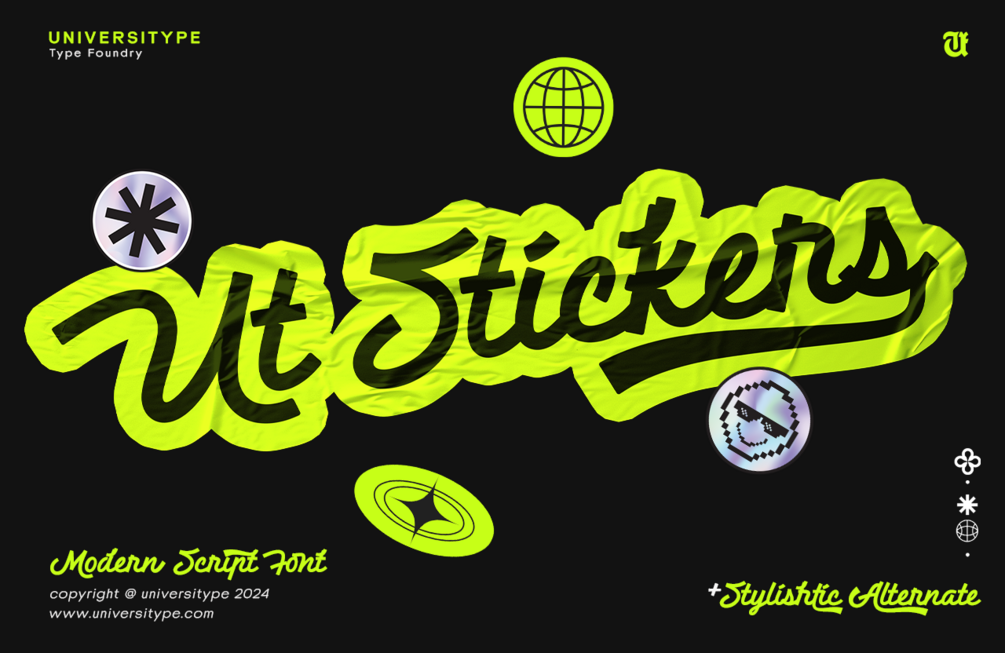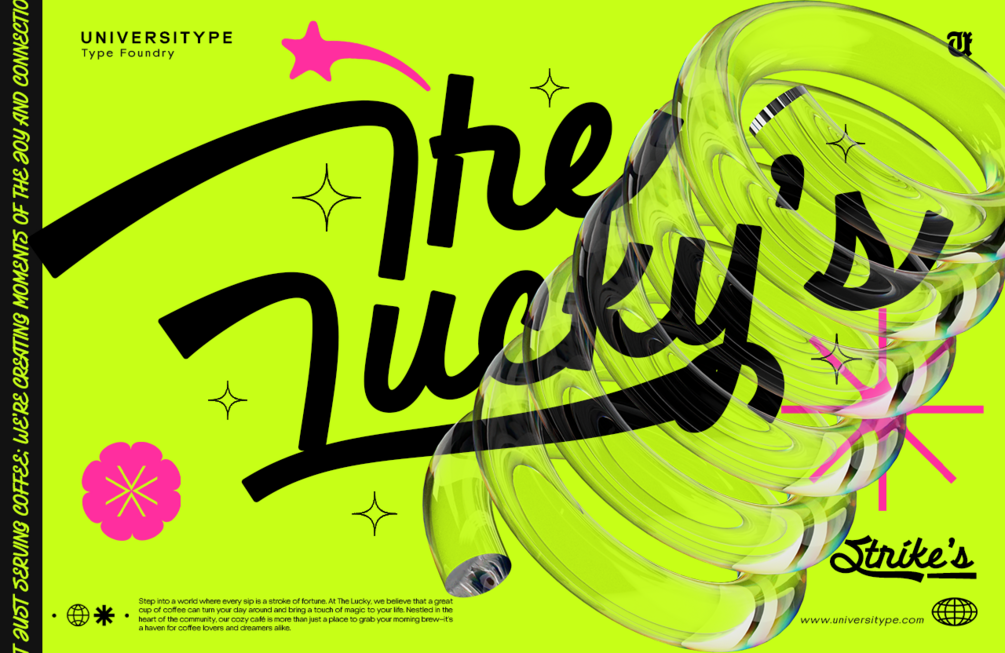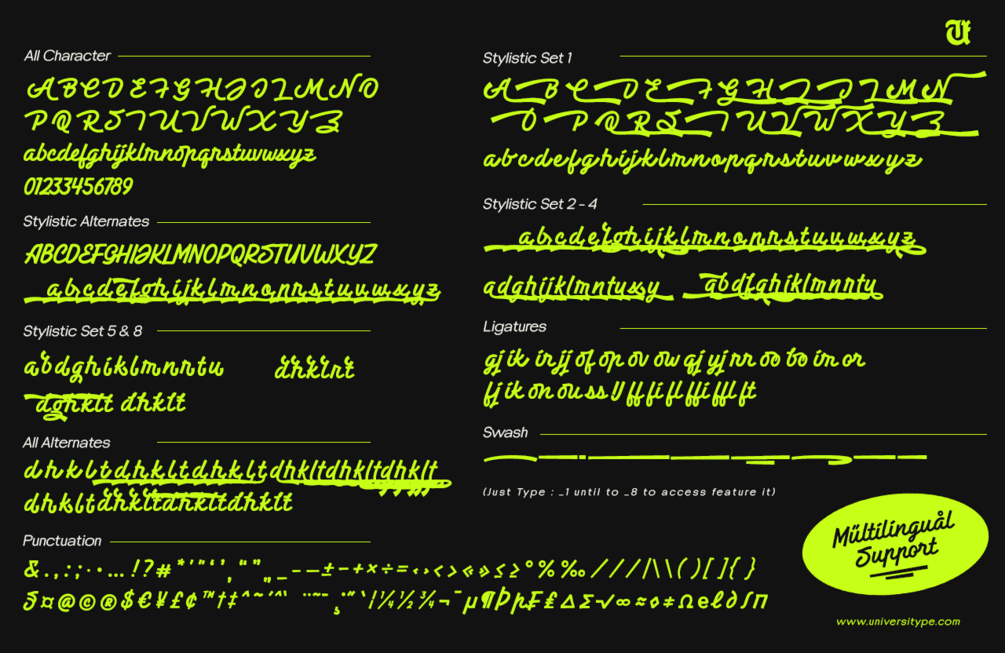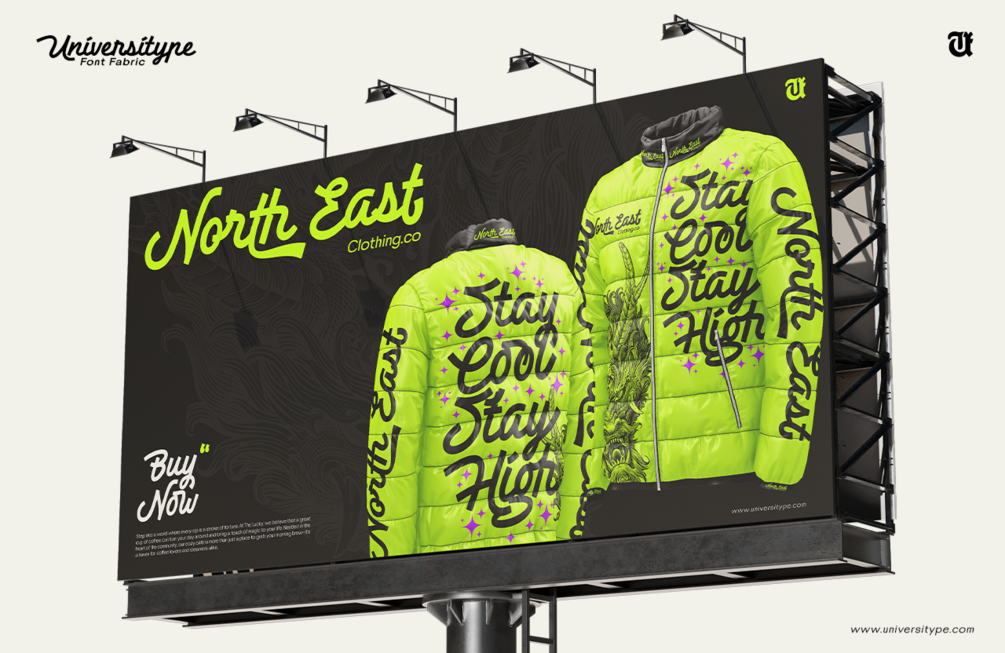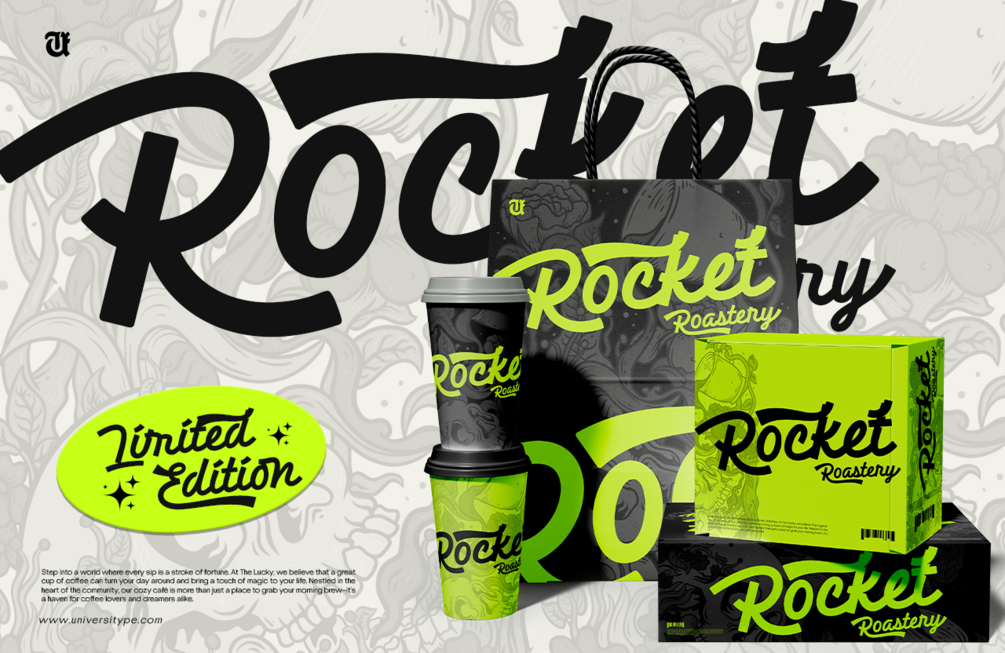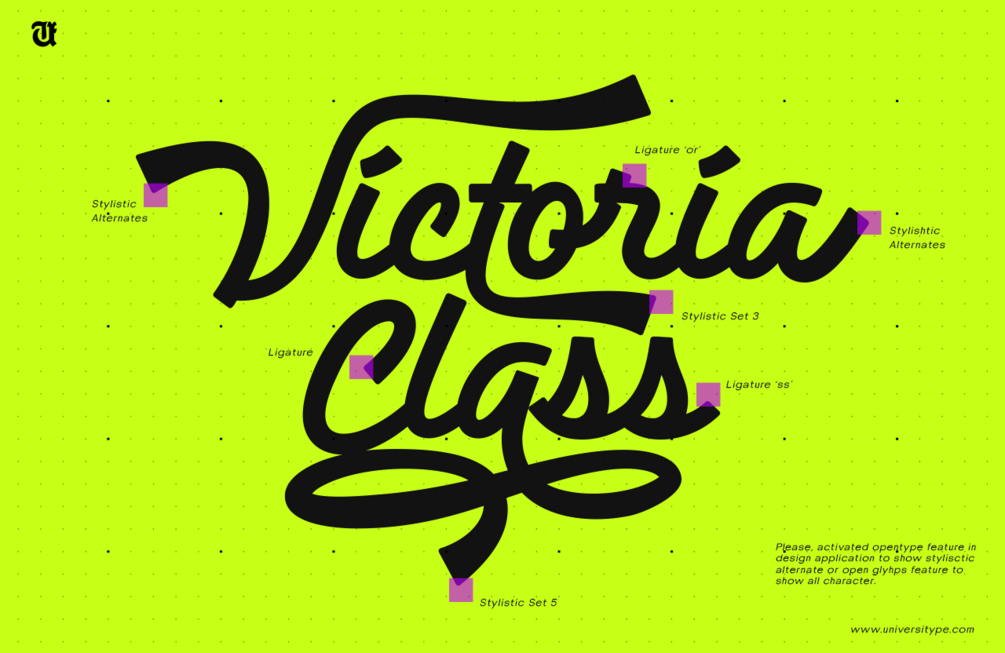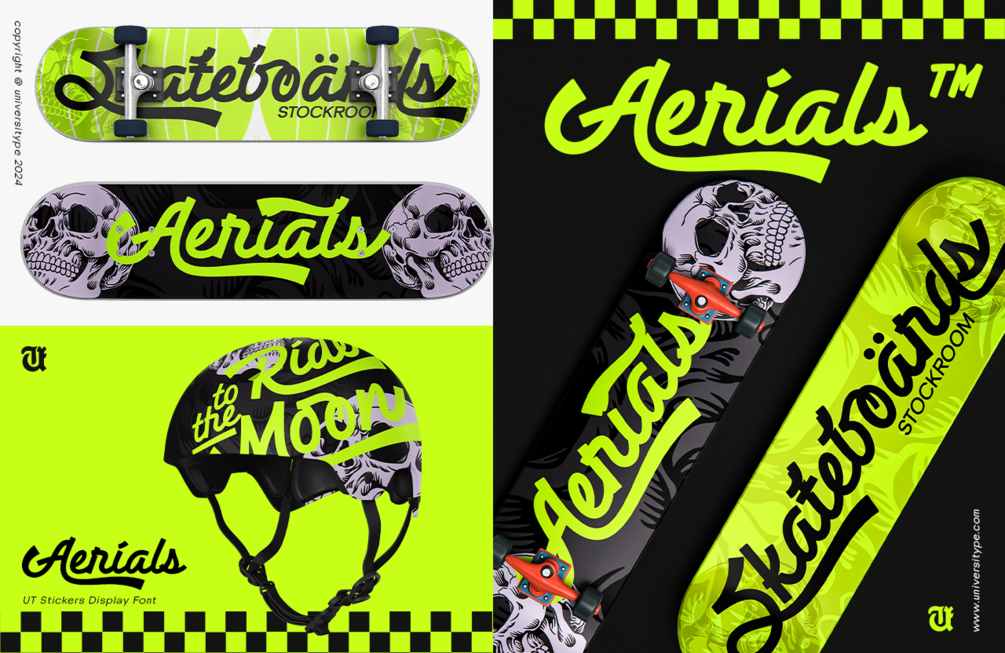
UT Stickers - A Modern Script Font
UT Stickers is a vibrant, modern script font inspired by the bold, expressive nature of street art. With its playful and dynamic design, UT Stickers brings a sense of energy and creativity to any project. Featuring 9 stylistic sets, over 20 ligatures, and multilingual support, this font is perfect for bold branding, eye-catching headlines, and playful designs that demand attention. Available in OpenType, TrueType, and Web Open Font formats, UT Stickers ensures compatibility across various platforms, making it an essential tool for designers looking to create impactful and memorable visuals.
Style: Modern Script Font
Key Characteristics:
• Ligatures & Alternates: Offers over 20 ligatures and 9 sets of stylistic alternates, allowing for a customized, unique look in every use.
• Swashes & Flourishes: Includes 5 swashes that can be easily accessed for extra flair.
• Special Characters: The font supports a full set of punctuation, numerals, and multilingual characters, making it versatile for global use.
Weight & Variants:
• Available in a Regular weight that balances boldness with readability.
• Stylistic sets provide additional flair and creativity options, including condensed and extended forms.